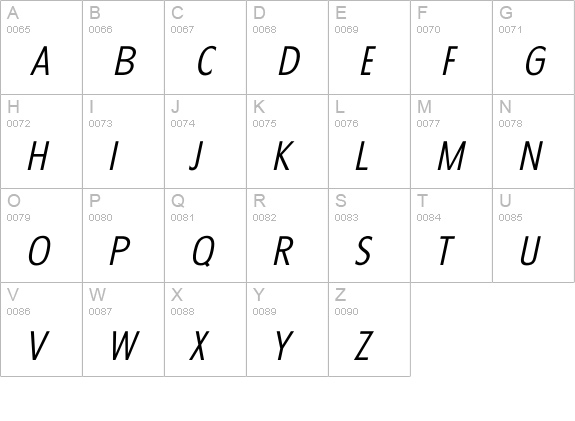
Iflorida Light is a refined, elegant variant in the Iflorida typeface family \xE2\x80\x94 well suited to elegant body text, refined sub-headings, and luxury branding.
Introducing Iflorida Light, an exquisite font that effortlessly combines elegance and modernity. This font is the perfect choice for those seeking a refined and sophisticated look in their designs. Iflorida Light boasts clean lines and a delicate balance, making it suitable for a wide range of projects. Whether you're designing invitations, branding materials, or even a website, this font will add a touch of class and finesse to your creations. One of the most remarkable aspects of Iflorida Light is that it is absolutely free. Yes, you read that right! This stunning font is freely available to download at FontsMarket.com. Now, you can enhance your designs without any cost or compromise on quality. The versatility of Iflorida Light is truly unmatched. Its sleek letterforms and subtle curves create a harmonious visual experience, ensuring legibility and readability across various mediums. This font is designed to captivate audiences and leave a lasting impression. Don't miss out on the opportunity to elevate your design projects with Iflorida Light. Download it today from FontsMarket.com and discover a world of possibilities. Embrace the freedom to create stunning visuals with this exceptional font that will set your work apart from the rest. Let Iflorida Light be the key to unlocking your design potential.